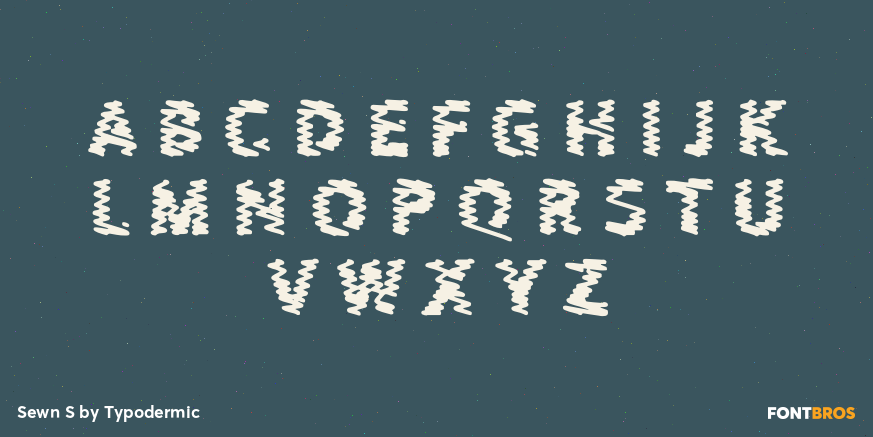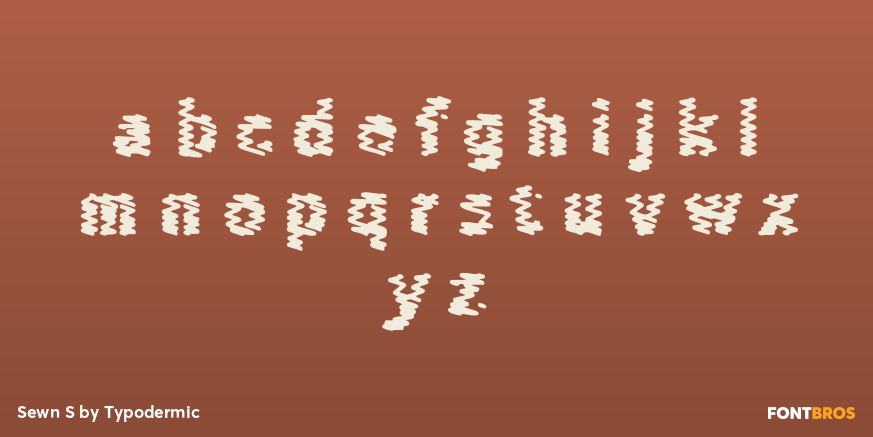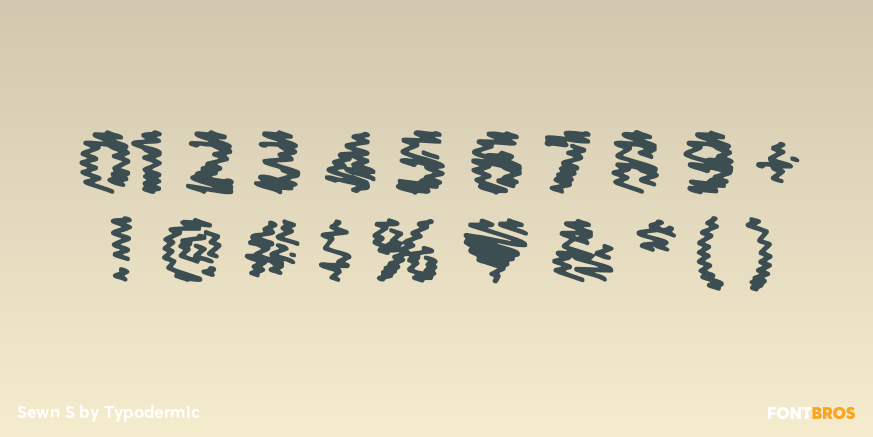
Sewn S
Sewn S is the most simplified member of Sewn’s display-size system. At the same type size, it uses the broadest thread-like marks and the fewest visible turns, keeping the stitched construction bold and recognizable when the lettering must be reproduced relatively small. The coarse texture is deliberate: it prevents fine faux-embroidery detail from disappearing during reduction.
Use Sewn S for compact product graphics, small ecommerce tiles, hangtags, packaging callouts, social thumbnails, and short labels that still need a textile connection. It remains a display face rather than body text, and it does not generate embroidery-machine files. Move to M, L, or XL as the final lettering grows and there is room for progressively finer drawn stitch detail.
Sewn S by Typodermic